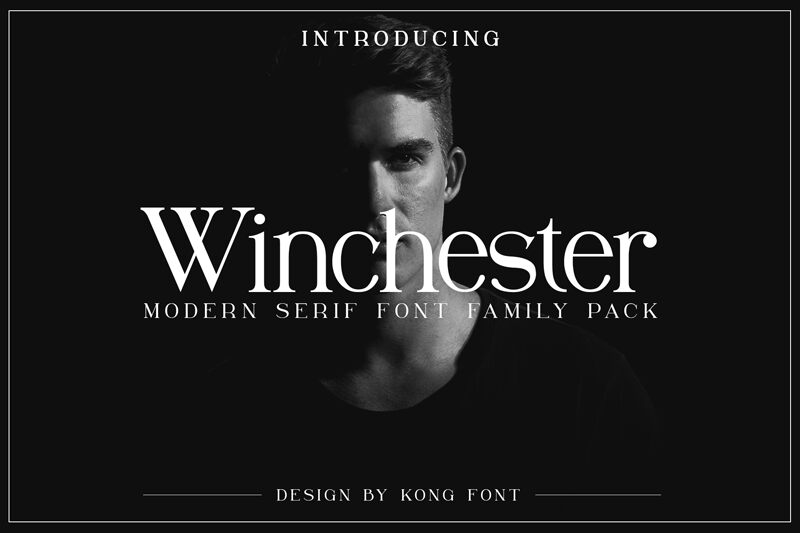
Winchester, the striking semi-light serif font designed by Kong Esport, is perfect for projects that require a touch of elegance and sophistication. Its delicate strokes and fine details make it suitable for branding materials such as logos, business cards, and letterheads. The classic yet modern design of Winchester also makes it ideal for editorial projects such as magazines, books, and newspapers. With its versatility in both digital and print media, this semi-light font can add a touch of refinement to any project from wedding invitations to packaging designs. Upgrade your typography game with Winchester today!